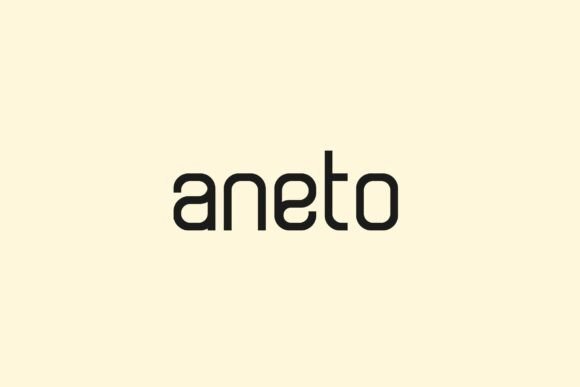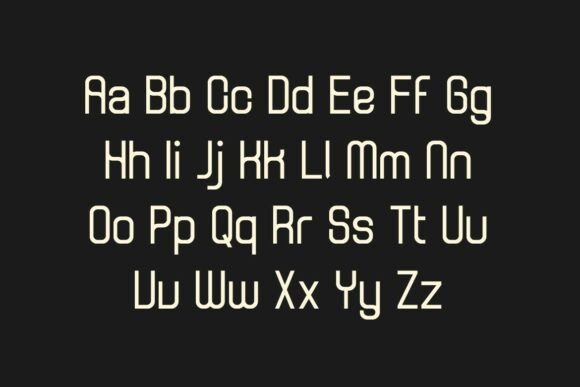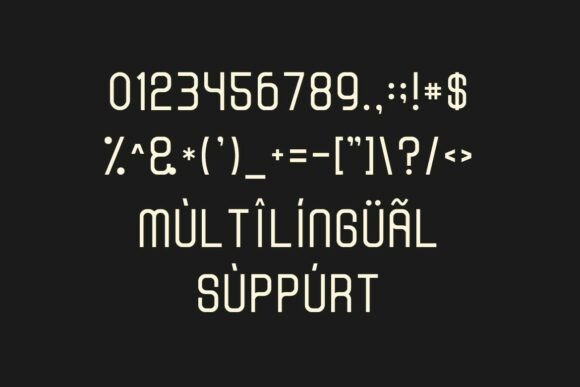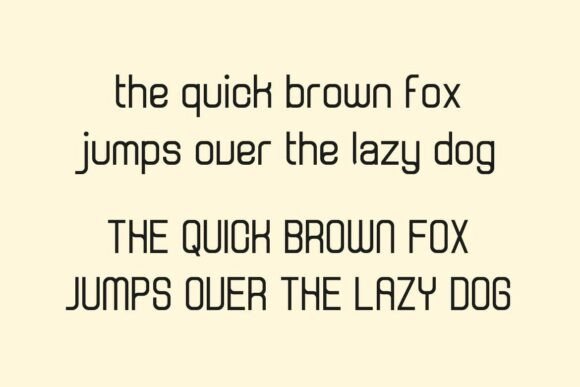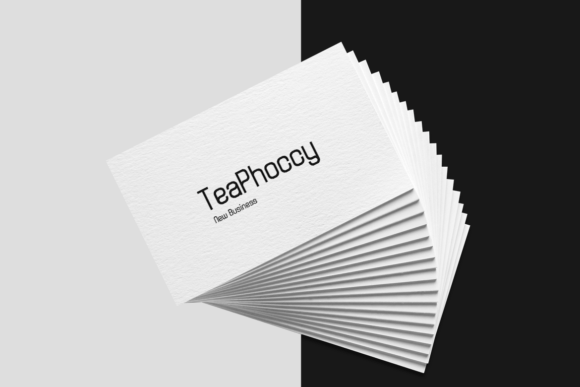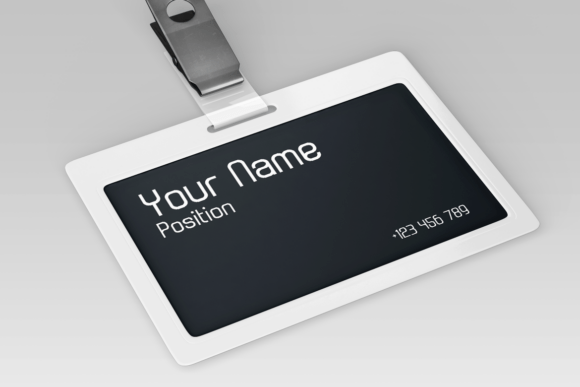
The Quest for the Perfect Font
As designers, we’ve all been there – staring at a blank page, desperately searching for the perfect font to bring our vision to life. It’s a moment of pure creative agony, when the smallest detail can make all the difference between a great design and a mediocre one. And then, like a breath of fresh air, we stumble upon the Aneto Font – a modern sans serif masterpiece designed with clarity and functionality at its core.
With its smooth curves, precise spacing, and minimalist aesthetic, the Aneto Font is the perfect tool for designers who demand a clean and timeless look. Whether you’re working on branding, editorial design, websites, or corporate materials, the Aneto Font is a valuable addition to your toolkit.
Aneto Font Key Features
- Font Family: Aneto Font is a sans-serif typeface designed for modern and clean typography.
- Unique Characteristics: Aneto Font features a unique blend of modern and classic elements, with a focus on readability and legibility.
- Language Support: Aneto Font supports over 200 languages, making it an ideal choice for global branding and design projects.
Aneto Font Review
I recently had the chance to work with the Aneto font, and I must say it’s a mixed bag. Let’s start with what works well ✨:
- Unique flair: Aneto has a distinctive, playful feel that sets it apart from more traditional sans-serif fonts.
- Clear legibility: The font is well-designed for digital use, with clear and sharp typography that’s easy on the eyes.
- Flexibility: Aneto comes in a range of weights and styles, making it versatile for various design applications.
However, there are some limitations to consider ⚠️:
- Overuse potential: Aneto’s distinctive style can feel gimmicky if overused, so it’s essential to balance its use with other fonts.
- Lack of versatility in certain weights: Some weights, particularly the lighter ones, can feel a bit too airy and may not work well for body text.
- Not ideal for fine print: The font’s playful feel can make it difficult to read in smaller sizes, so it’s best used for headings and titles.
Overall, I’d say Aneto is a great choice for designers looking to add some personality to their work, but it’s essential to use it judiciously and balance it with other fonts to avoid overuse.
Aneto Font is ideal for creating modern and elegant designs. Here are some tips and use cases to get the most out of it:
- Use Aneto Font for headings and titles to add a touch of sophistication.
- Combine Aneto Font with other fonts to create a unique and eye-catching design.
- Experiment with different font sizes and colors to create a visually appealing design.
Alternative Fonts to Aneto Font
Montserrat is a sans-serif font designed by Julieta Ulanovsky in 2011. It is a popular alternative to Aneto Font, especially for digital applications. Montserrat is more geometric and modern, making it ideal for use in web design, mobile apps, and other digital platforms. Compared to Aneto Font, Montserrat is more versatile and has a wider range of font weights and styles.
Lato is a sans-serif font designed by Łukasz Dziedzic in 2010. It is a clean and elegant font that is similar to Aneto Font in terms of its modern and minimalist design. Lato is ideal for use in branding, packaging, and other print materials where a clean and simple font is desired. Compared to Aneto Font, Lato has a more rounded and friendly feel.
Open Sans is a sans-serif font designed by Steve Matteson in 2010. It is a highly legible font that is suitable for a wide range of applications, including digital and print materials. Open Sans is a good alternative to Aneto Font for use in corporate branding, signage, and other materials where a clear and readable font is desired. Compared to Aneto Font, Open Sans is more straightforward and lacks the distinctive flair of Aneto Font.